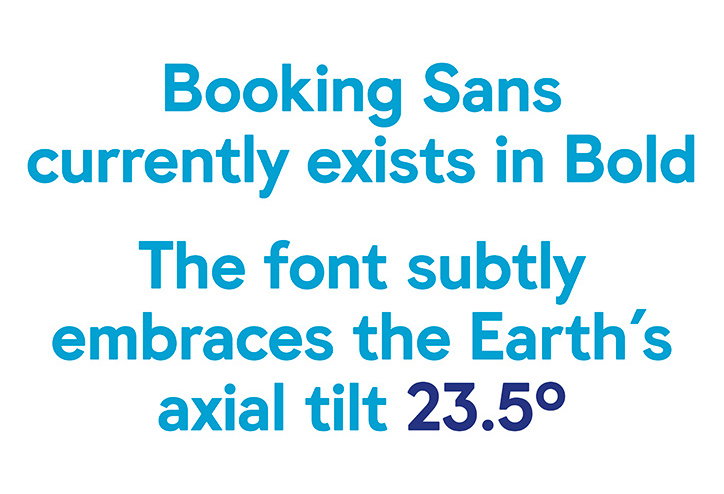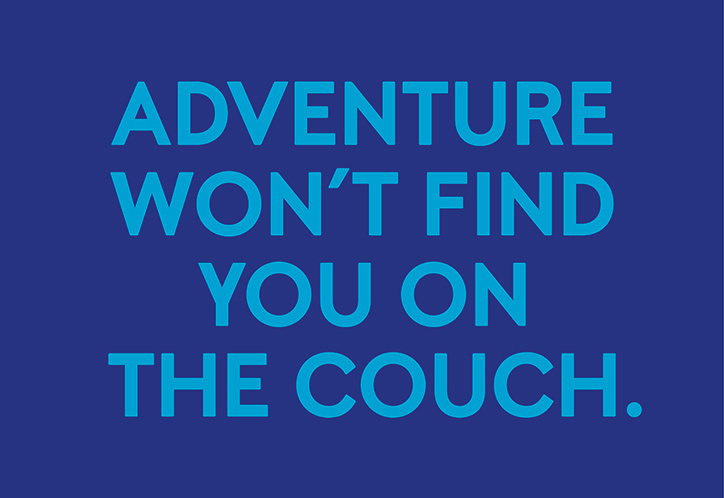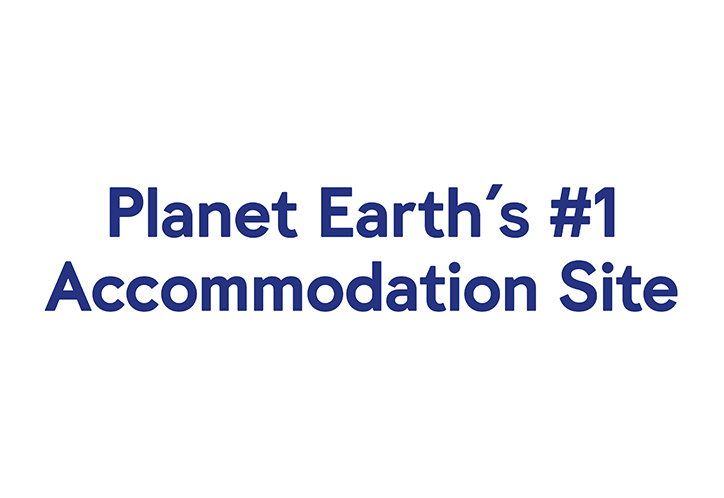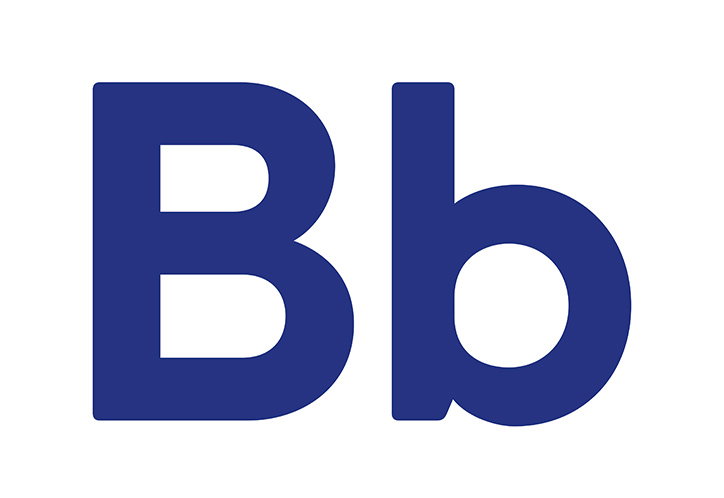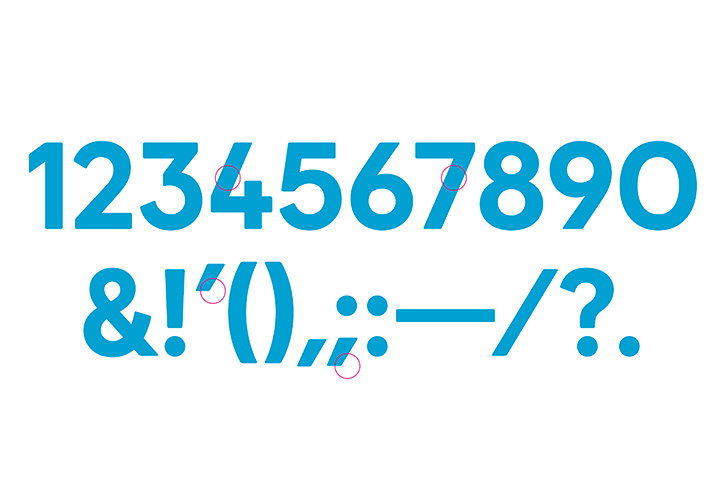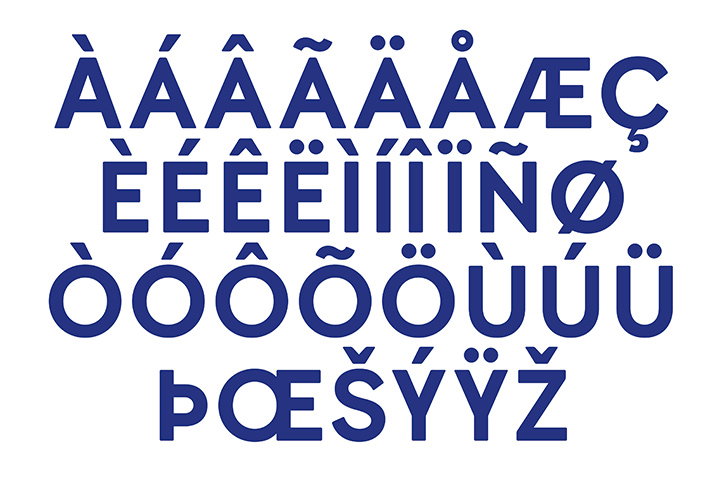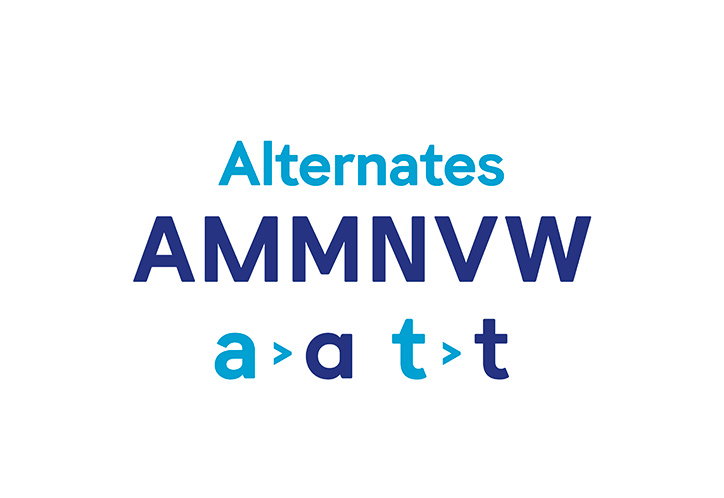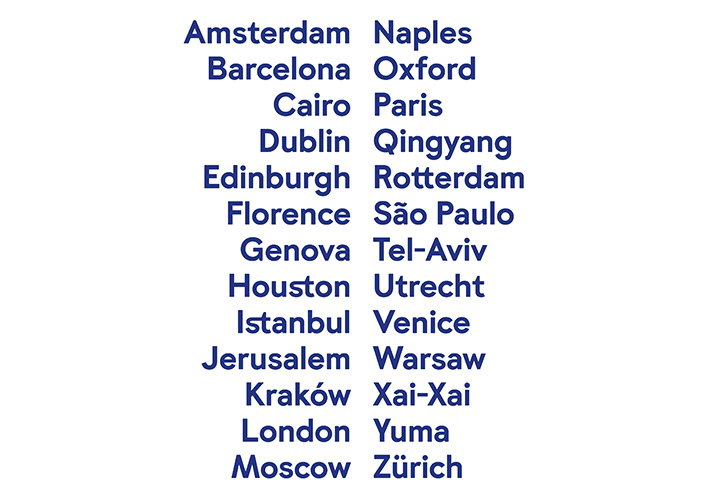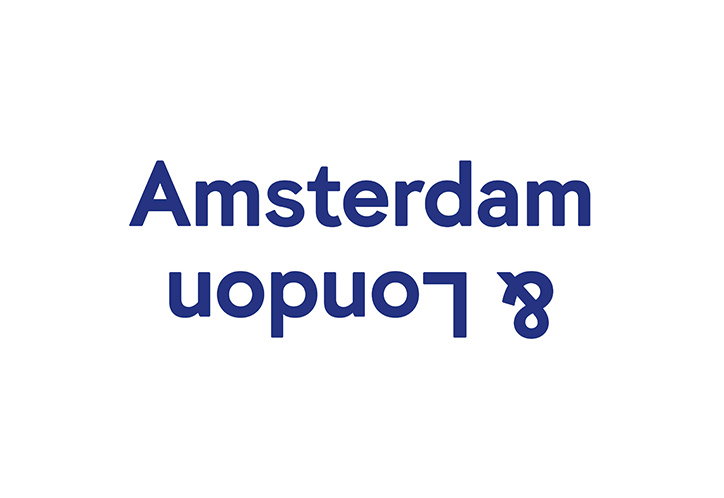
Wieden + Kennedy Amsterdam and Colophon create typeface that works with the Earth's tilt
The world of typography is a complex and enigmatic one, and one that sometimes feels a little impenetrable. So in Wieden + Kennedy Amsterdam’s work for travel site Booking.com it thought to itself, “why not align it a little more with Mother Earth?” So that’s what they did, forming an identity based around a typeface that “celebrates the Earth’s angle tilt of 23.5.” The typeface, which was created with type foundry Colophon, is “a subtle nod to travel and Booking.com’s huge worldly reach, and variety of accommodations," according to W+K Amsterdam design director Joe Burrin. The typeface is used across all promotional materials, and was designed to work alongside the company’s logo with its rounded forms to create “a functional but welcoming sensibility,” says the agency.
Its first appearances is in Booking.com’s 2015 summer campaign Wing It, which features photography was by Neil Stewart. "We have initially produced one weight (bold) to be used within the recent summer campaign ‘Wing it’, we see this leading to the development of further weights for wider, more flexible usage,” adds Joe.